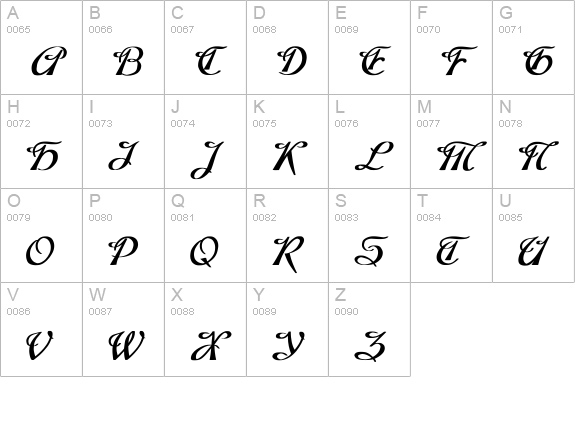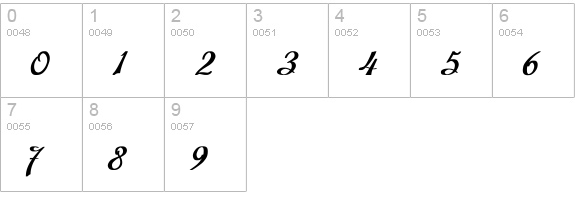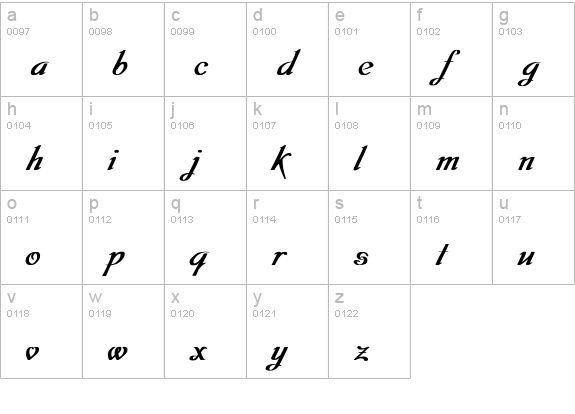
Dobkin Bold Plain is a strong, high-contrast variant in the Dobkin typeface family \xE2\x80\x94 well suited to headlines, attention-grabbing titles, and strong calls-to-action.
Dobkin Bold Plain font is a versatile and modern typeface that exudes confidence and professionalism. With its strong and bold appearance, this font is perfect for making a bold statement in your designs. The sleek and clean lines of Dobkin Bold Plain give it a timeless appeal that is sure to catch the eye. Best of all, Dobkin Bold Plain font is available for free download at FontsMarket.com. Whether you're working on a project that requires a bold and striking font or simply want to add a touch of sophistication to your designs, Dobkin Bold Plain is the perfect choice. Download it today and take your designs to the next level with this stunning typeface.